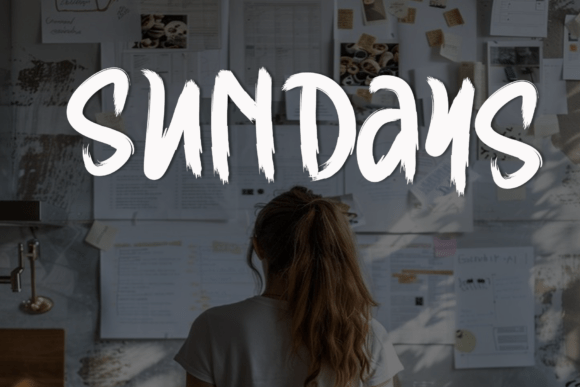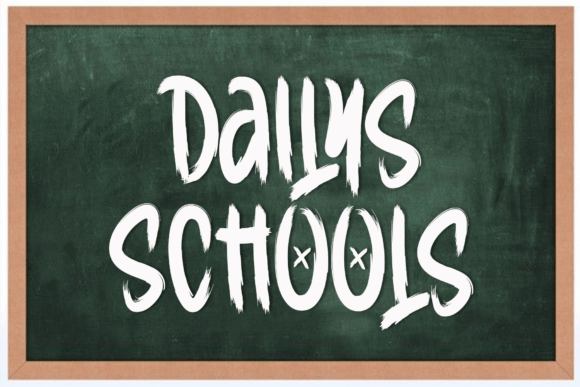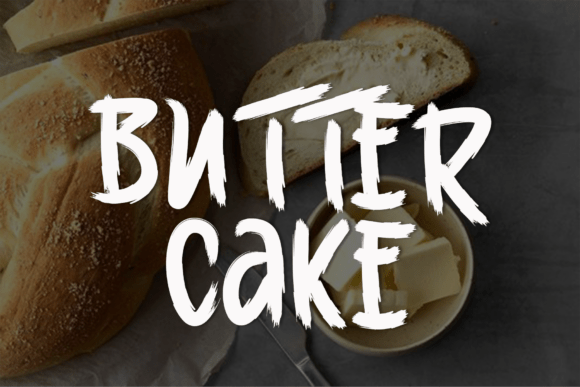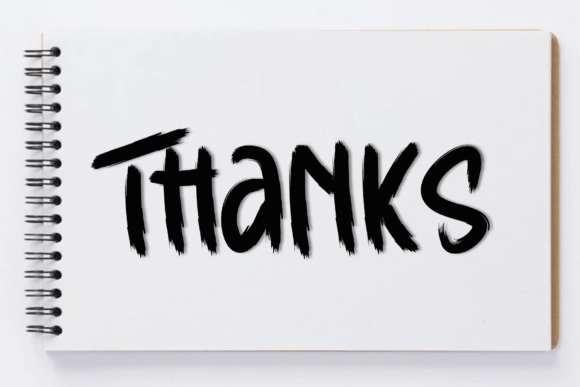
Introduction to Aweosome Font
Have you ever found yourself in the middle of a creative project, staring at a blank canvas or a dull font, and suddenly hit with a wave of inspiration? The perfect idea strikes, and you can’t wait to bring it to life. For designers, this moment is a thrill like no other. It’s a chance to breathe new life into a project and make it truly special.
But, what if the right font could be the catalyst for that spark? That’s where the Aweosome Font comes in – a cool and modern font that radiates charm and freshness. With its high-quality design and transparent background, it’s the perfect addition to any creative project. Whether you’re working on a design resource or just need a font to elevate your next project, the Aweosome Font is a valuable asset for any designer looking to take their work to the next level.
Key Features of Aweosome Font
- High-quality vector design with transparent background, perfect for creative projects that require a clean and minimalist look.
- Designed to be highly customizable, with a wide range of font sizes, colors, and styles to choose from, making it an ideal design resource for creative projects.
- Unique characteristics include a bold and modern aesthetic, with a touch of elegance and sophistication, setting it apart from other fonts in the market.
- Perfect for designers looking for a high-quality, free design resource to elevate their creative project, with a transparent background that ensures seamless integration with any design element.
Honest Review: Aweosome Font
I recently stumbled upon Aweosome Font while searching for the perfect design resource for my creative project. I was thrilled to find a free download that promised high-quality typography.
✨ One of the things that works well with Aweosome Font is its versatility. I was able to use it for both web and print designs without any issues. The font is highly customizable, and I appreciated the transparent background, which made it easy to layer over other elements.
- ✨ Wide range of styles and weights to choose from
- ✨ Excellent for both digital and print designs
- ✨ Highly customizable
⚠️ However, I did encounter some limitations with Aweosome Font. The font library is relatively small, which may not be ideal for large-scale designs. Additionally, some of the characters may not be as polished as I would have liked.
Overall, I was pleasantly surprised by Aweosome Font. While it’s not perfect, it’s a solid choice for designers on a budget or those looking for a free design resource. With a little creativity, you can achieve high-quality results using this font.
How to Use Aweosome Font
Aweosome Font is a high-quality design resource perfect for any creative project. With its unique style and transparent background, it’s ideal for adding a touch of sophistication to your designs.
Getting the Most Out of Aweosome Font
Here are some tips for getting the most out of Aweosome Font:
- Experiment with different font sizes and styles to find the perfect combination for your design.
- Use Aweosome Font in conjunction with other high-quality design resources for a professional look.
- Take advantage of the font’s transparent background to create unique and eye-catching designs.
Aweosome Font is perfect for a wide range of projects, including:
- Logo designs and branding materials.
- Social media graphics and ads.
- Presentations and reports.
- Business cards and stationery.